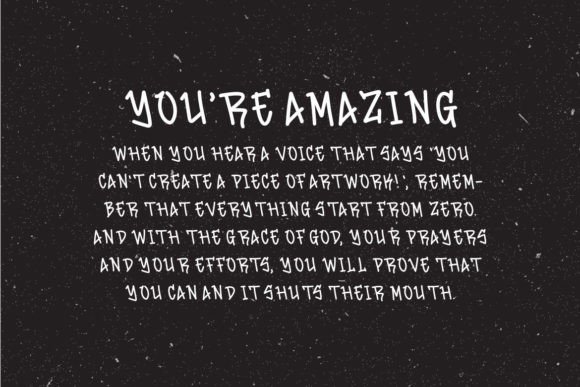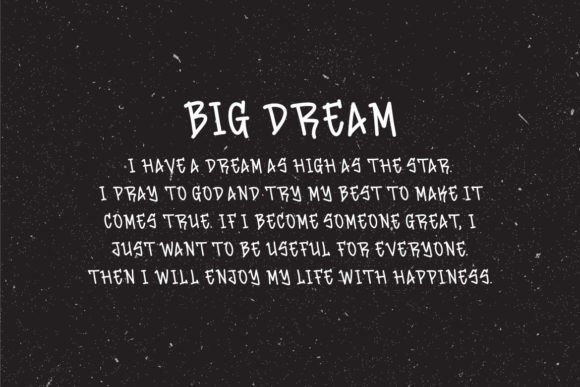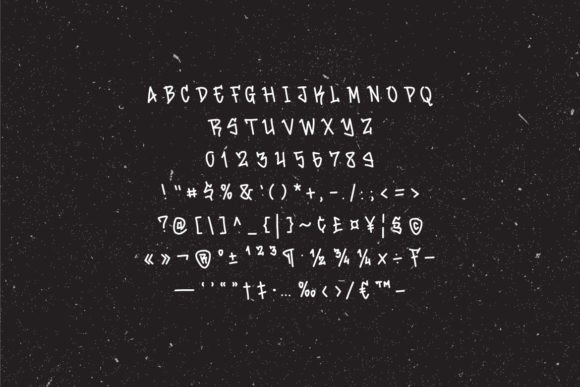
Introduction to Rockimaru Font Font
Fonts play a crucial role in design, and the Rockimaru Font font is a typeface that brings both character and versatility to any project. Whether you’re working on a branding project, a website, or a print design, the Rockimaru Font font offers a unique style that can elevate your work.
| 👤 Author | Mightyfire |
Looking for a font with a street art style.
**Rockimaru** is here Rockimaru can be used in any work such as logo, wall art, apparel branding, team logo, and many more.
Key Features of Rockimaru Font Font
Why Choose Rockimaru Font Font?
The Rockimaru Font font is more than just a typeface – it’s a design tool that helps you communicate your message with style and clarity. Its unique character set and versatile design make it suitable for a wide range of applications, from elegant invitations to bold headlines.
With its carefully crafted letterforms and balanced proportions, the Rockimaru Font font ensures readability and visual appeal across all mediums.
What makes Rockimaru Font font special?
The Rockimaru Font font stands out with its unique design, exceptional readability, and versatility across various design applications.